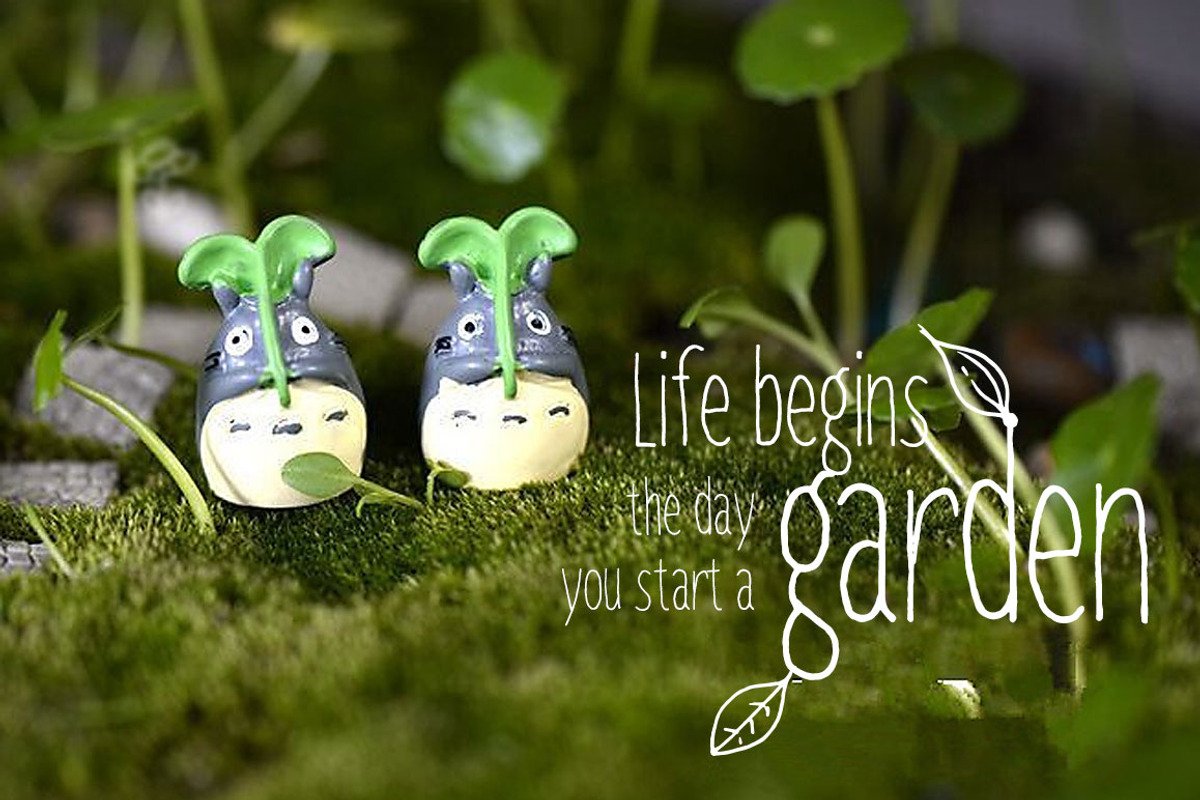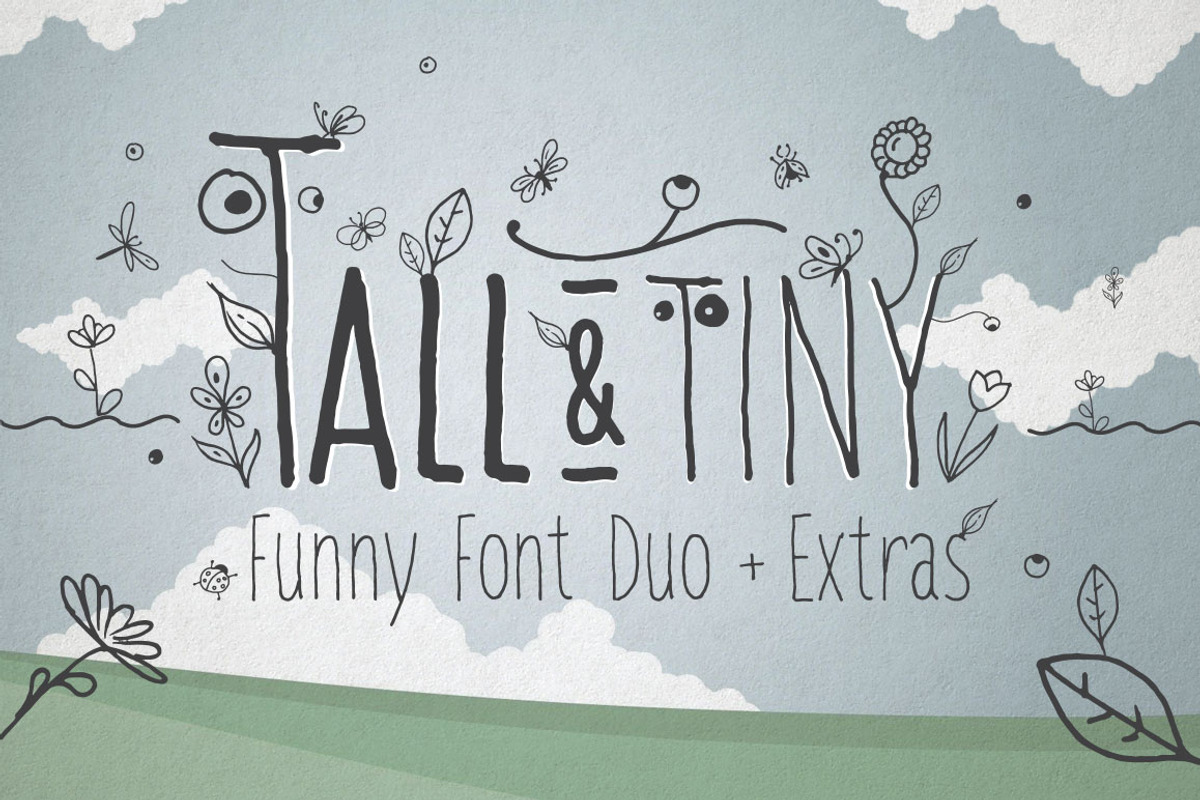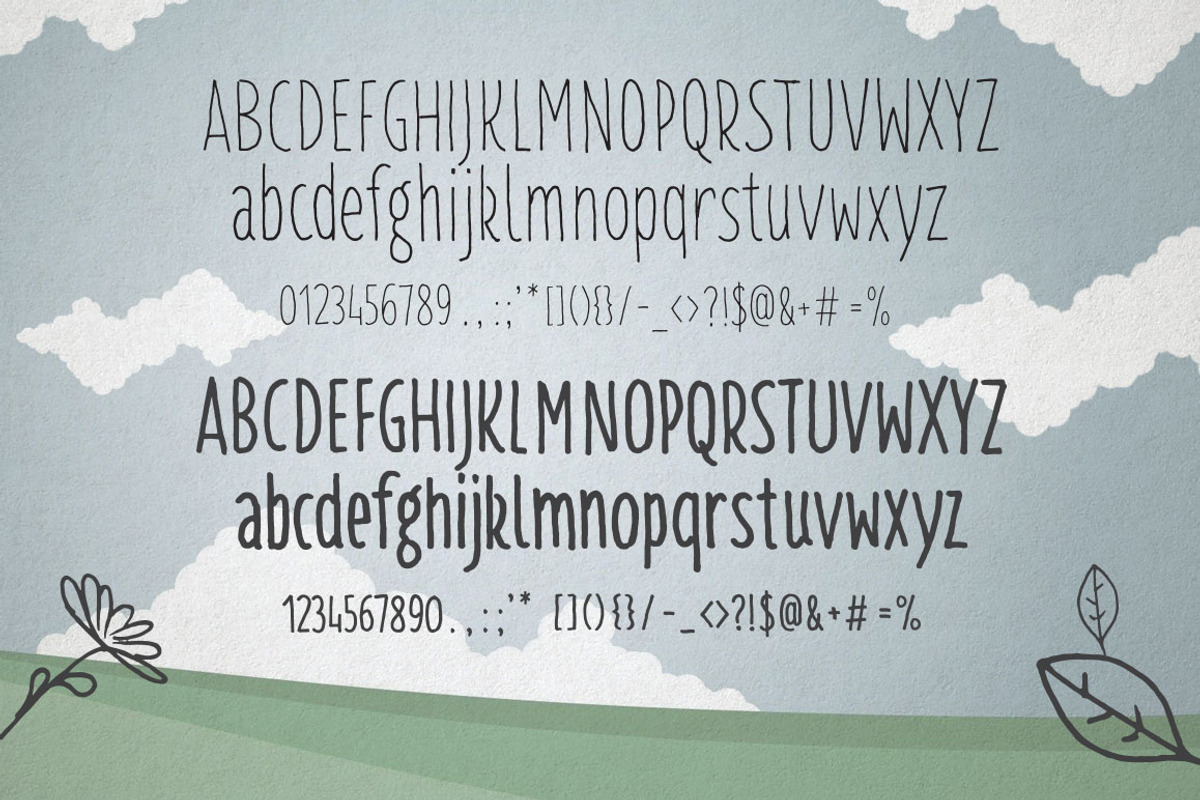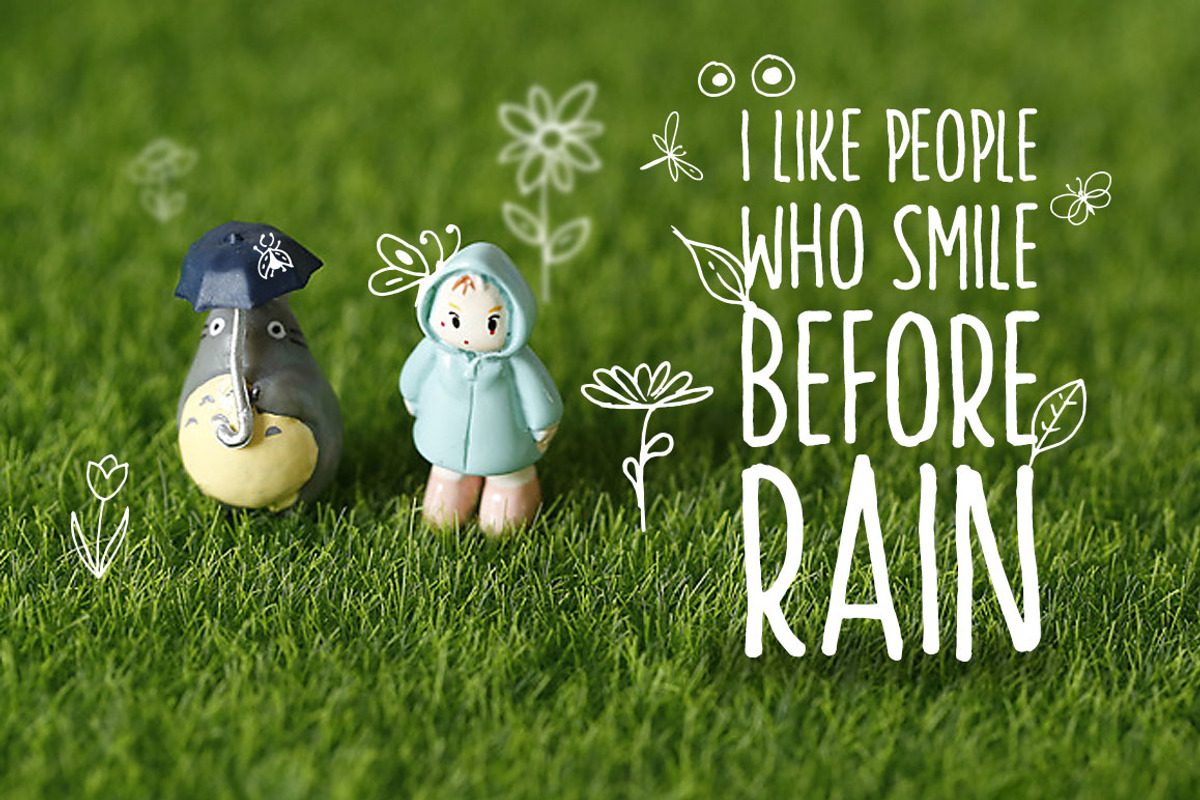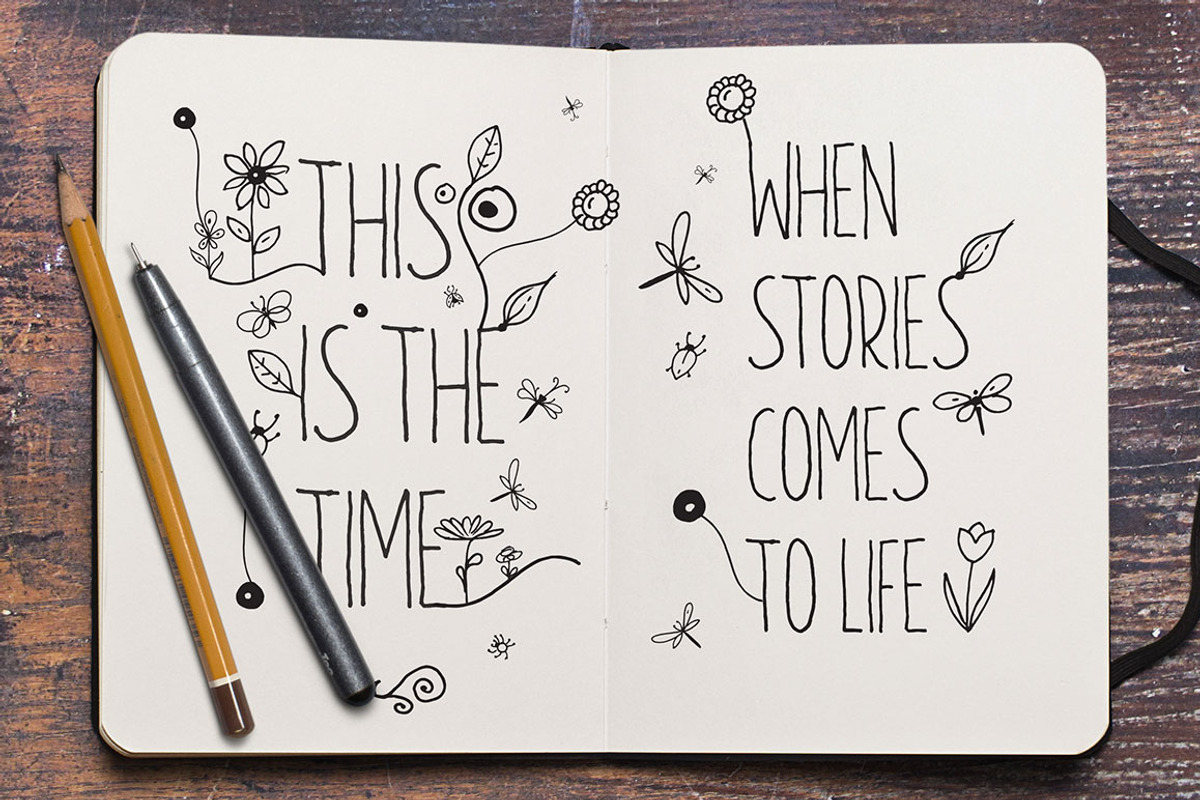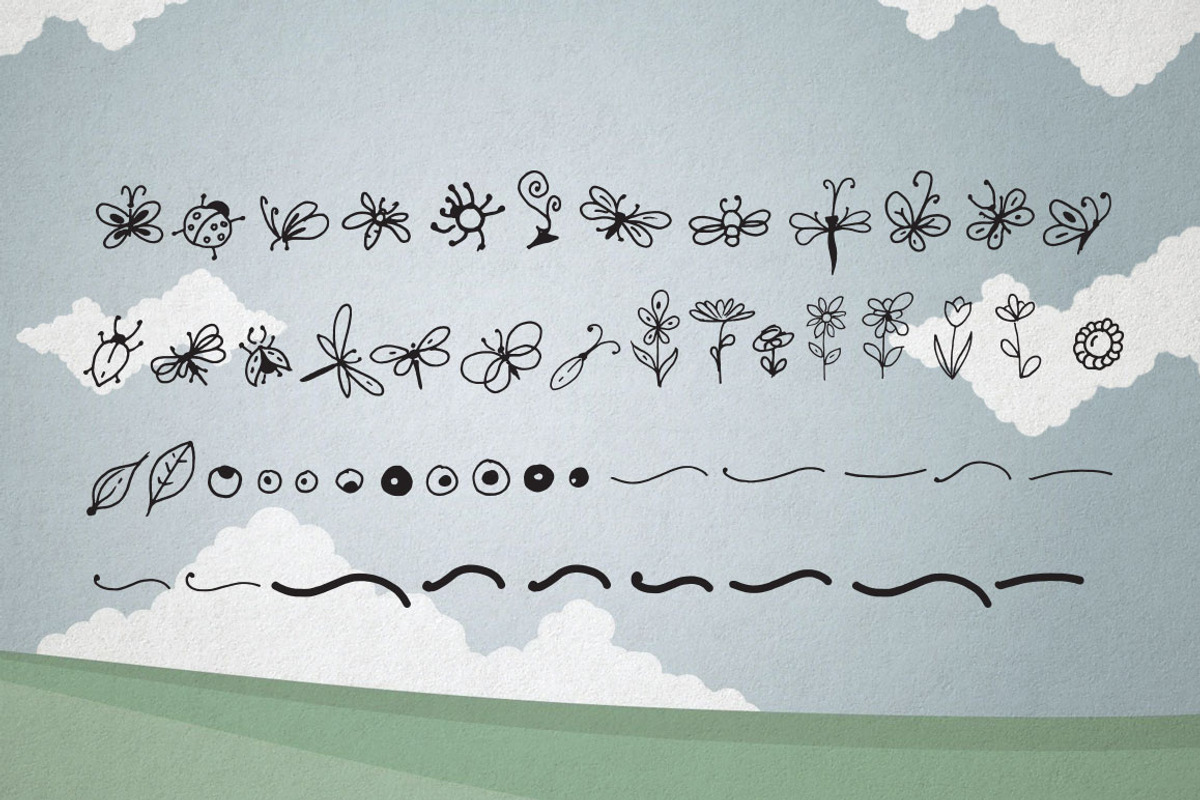
Tall & Tiny Font Duo
Tall & Tiny Font Duo by DesignSomething is a font selected for branding, posters, packaging, typography.
- This font comes with 52 hand drawn extras like bugs, insects, flowers, lines and leaves.
Why Tall & Tiny Font Duo is worth a look
Tall & Tiny Font Duo by DesignSomething fits naturally into Branding, posters, packaging, typography.